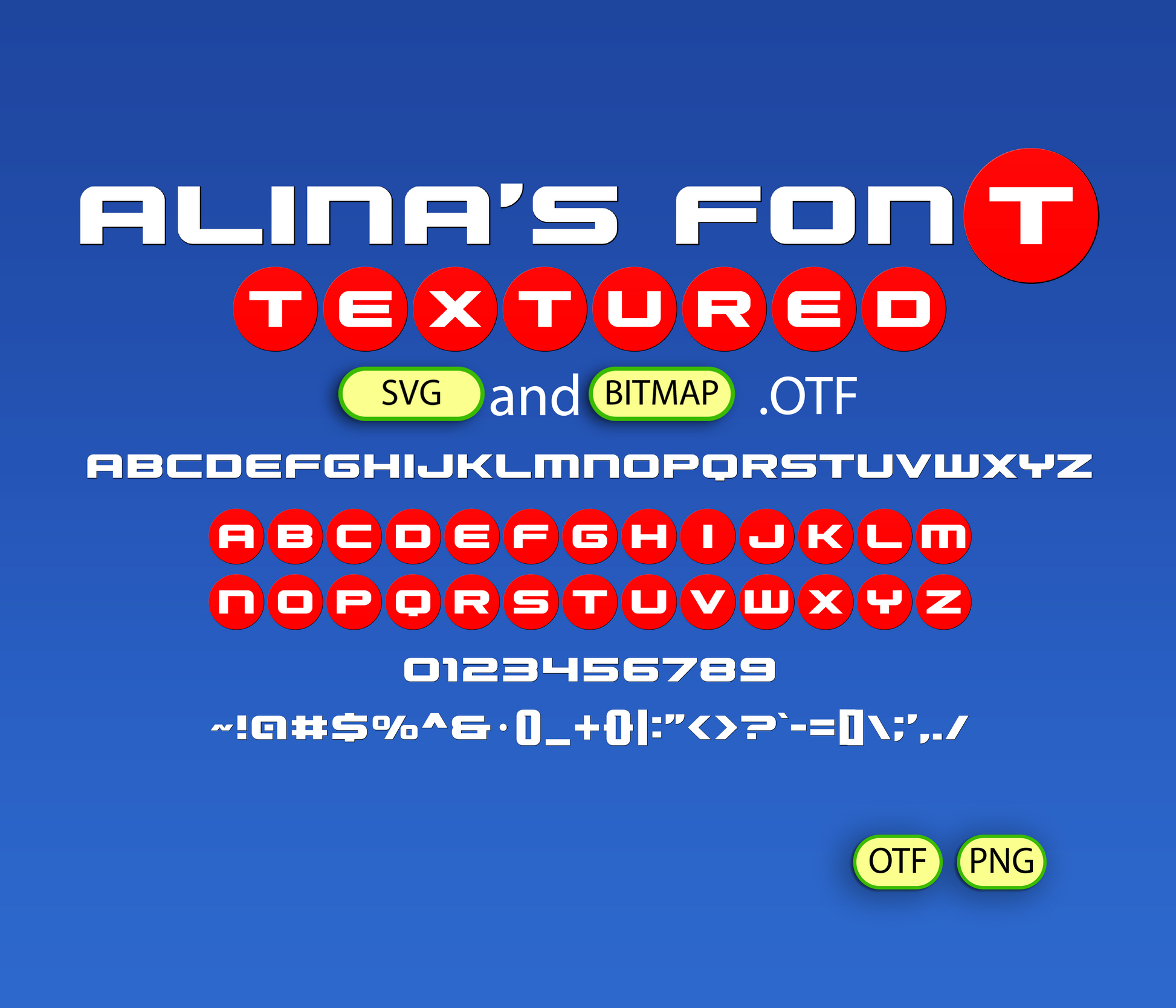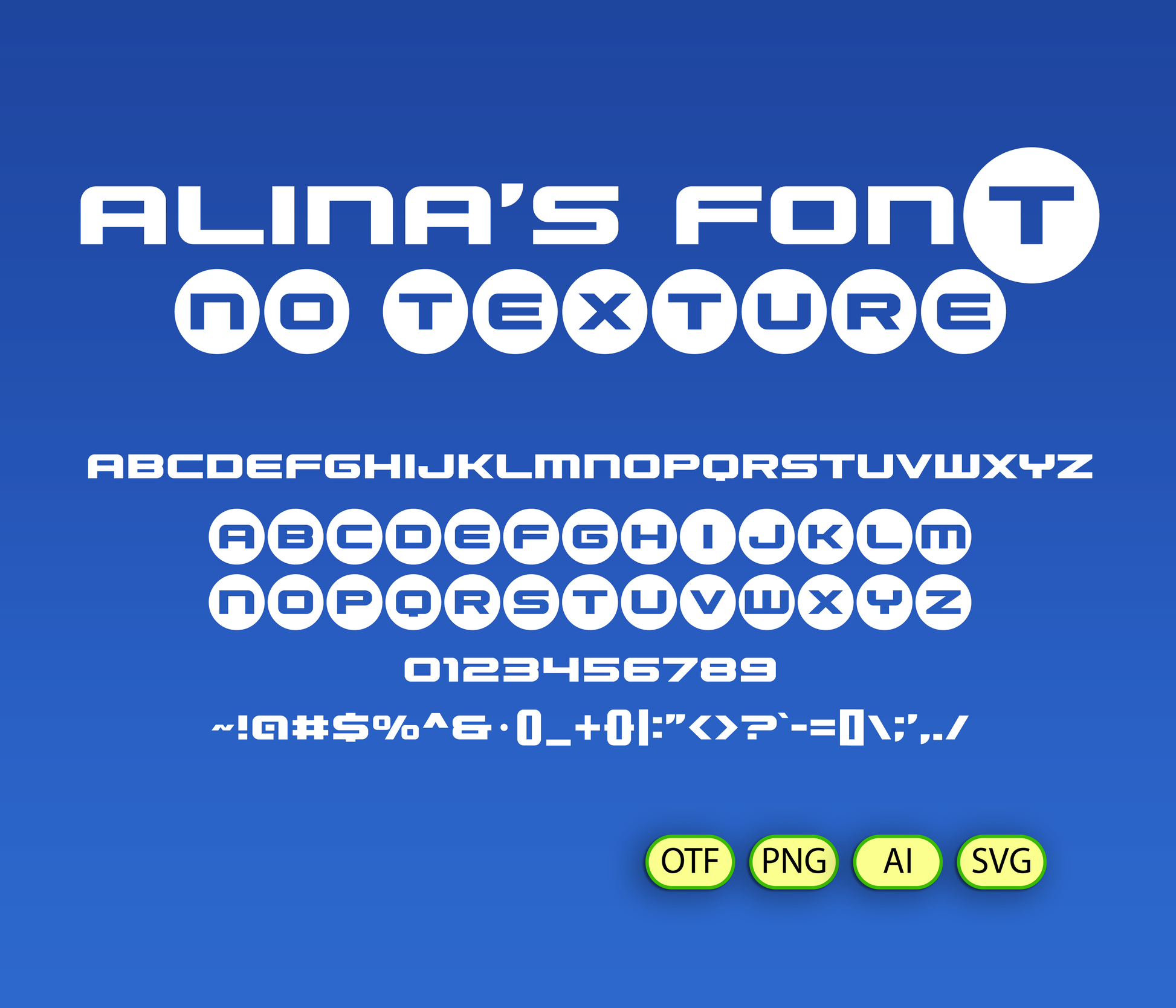
Future Robot Companion Font Textured
Step into the world of heartwarming robotic adventures with our Future Robot Companion font, capturing the essence of lovable automation and environmental hope. Perfect for animation enthusiasts, eco-friendly creators, sci-fi lovers, and digital artists, this clean-lined font brings futuristic charm to your projects. Create space-age invitations, robotic decorations, or earth-conscious content with the endearing spirit of mechanical friendship.
Our Future Robot Companion font features sleek, mechanical lines and eco-conscious characters reflecting the charm of robotic helpers. Ideal for:
- Tech Events: Design engaging invitations, banners, and signage for robotics showcases and eco-tech gatherings.
- Environmental Projects: Perfect for recycling campaigns, earth-care initiatives, and green technology materials.
- Digital Content: Enhance sci-fi websites, tech-themed social media, and futuristic digital presentations.
- Children's Activities: Ideal for robot-themed parties, educational materials about sustainability, and space adventure crafts.
- Green Innovation: Create materials for environmental awareness, future technology, and space exploration themes.
Our font pays tribute to mechanical friendship and environmental care, empowering your designs with its innovative and hopeful spirit. Whether crafting eco-conscious materials, designing robotic merchandise, or adding futuristic charm to special projects, this clean-lined font communicates technological warmth with professional precision. Ready to power up your creations? This font is your key to robot-inspired design.